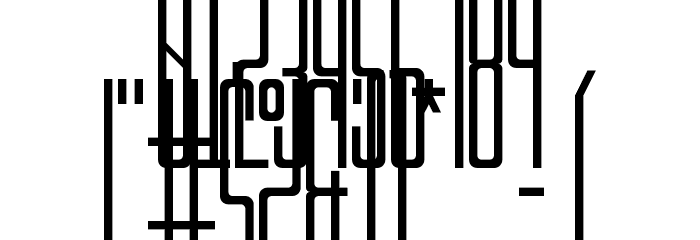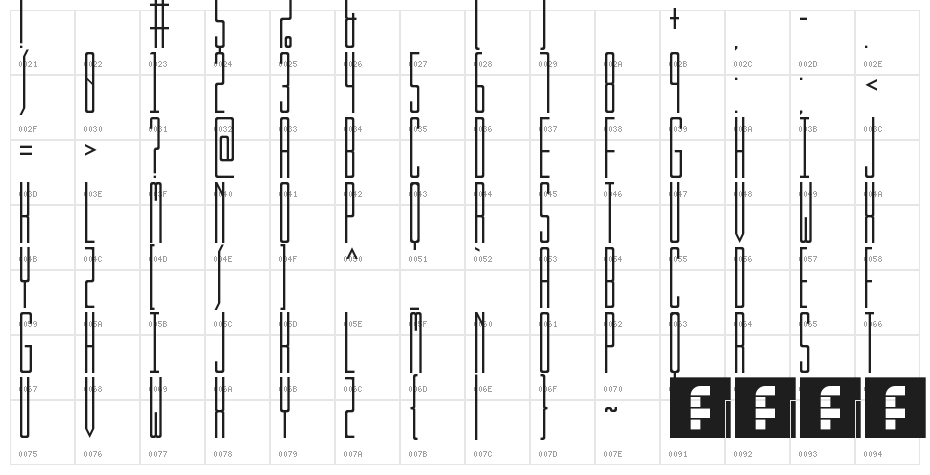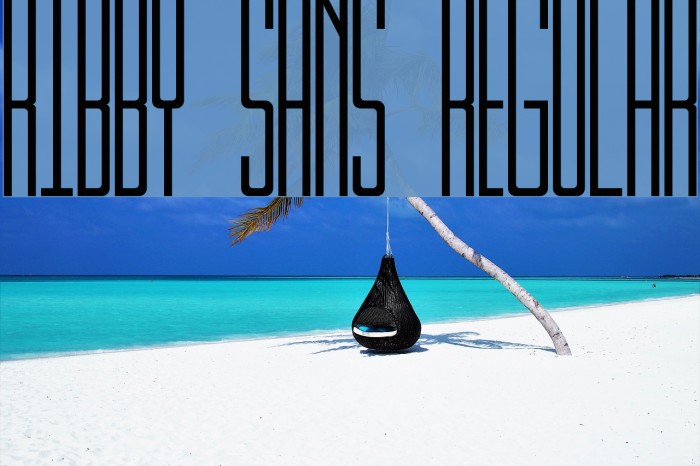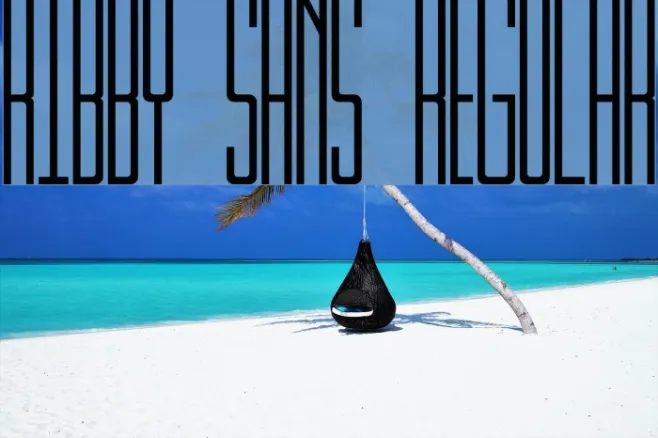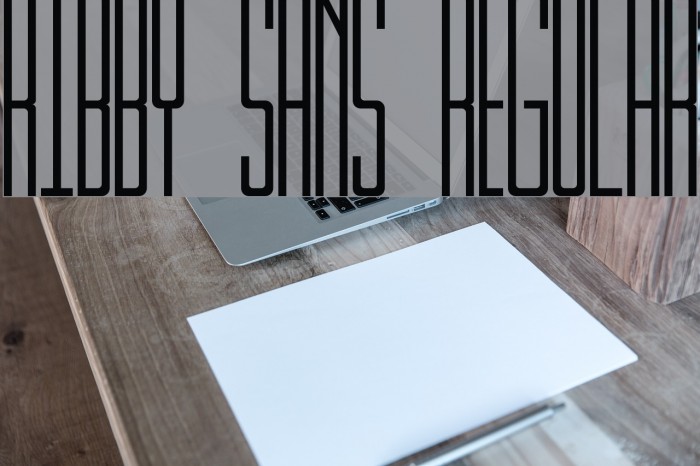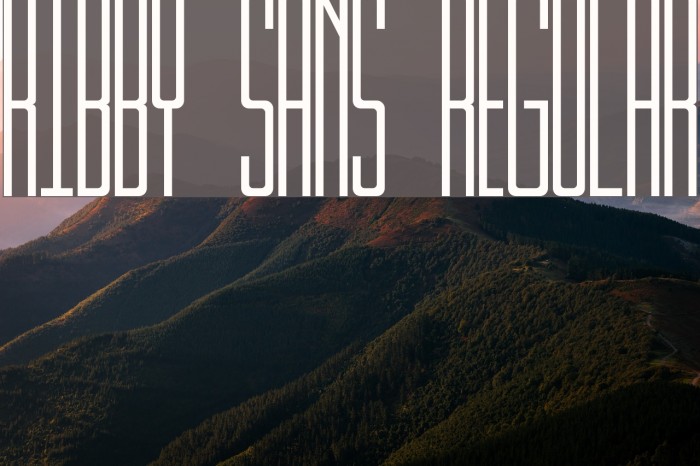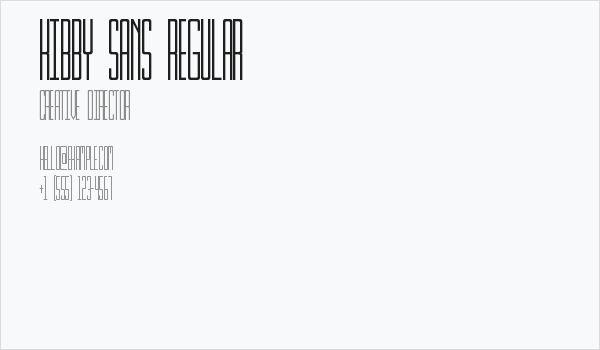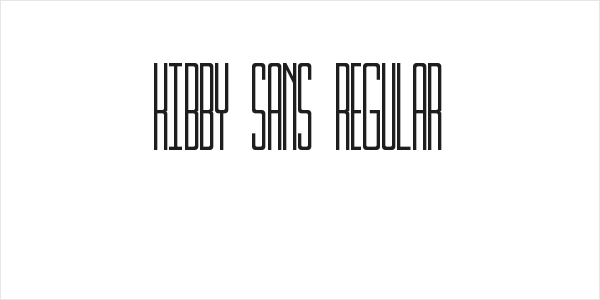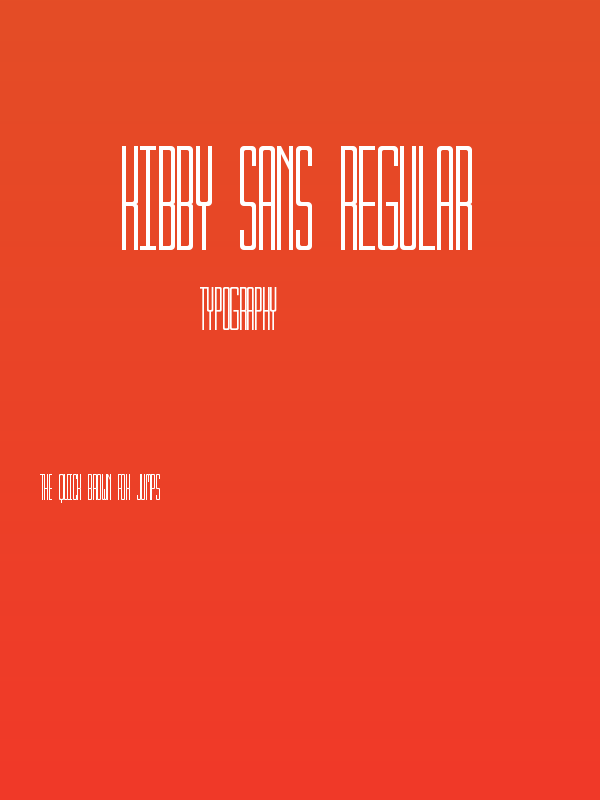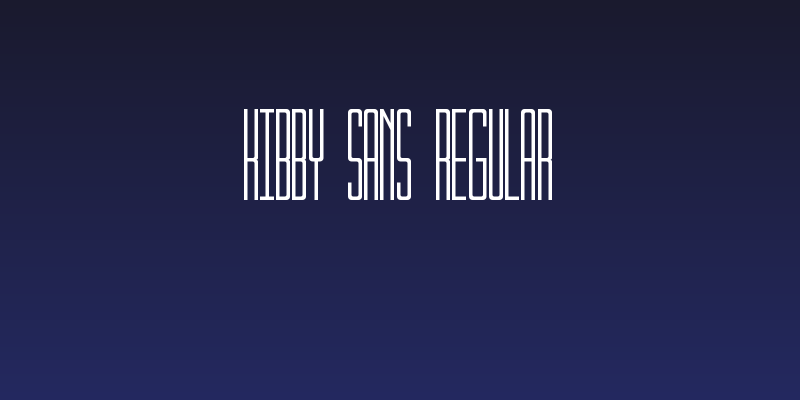
Kibby Sans Regular Font
Kibby Sans Regular Description
This font features a highly condensed and elongated design, characterized by its tall, narrow letterforms. The strokes are consistent in width, creating a uniform appearance across all characters. The vertical emphasis is pronounced, giving the font a modern and sleek look. The spacing between characters is tight, which enhances the compactness of the text. Despite its narrow structure, the font maintains legibility due to its clean lines and minimalistic style. It is suitable for creating a striking visual impact, especially in contexts where space is limited.
| Proposed Projects | Ideal for posters, headlines, and branding where a modern and compact look is desired. |